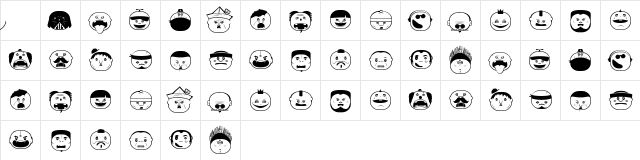
Bad boy Regular
| Foundry | QKila |
| Designer | Qkila |
Design Context for Bad boy Typeface
Bad boy is a composed and adaptable typeface that performs quietly and consistently across a wide range of design contexts.